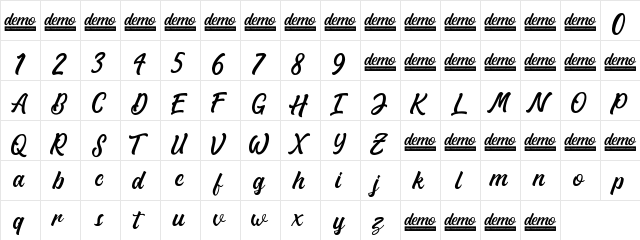
Matane Personal Use Only Script
Design Context for Matane Personal Use Only Typeface
Matane Personal Use Only brings a calligraphic fluidity to the page — its connecting strokes and expressive curves give it an unmistakably human quality.